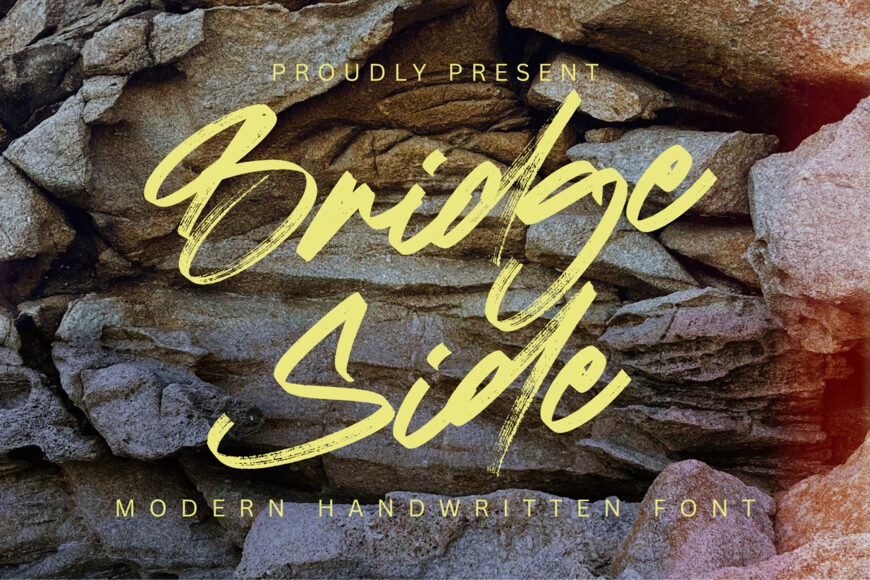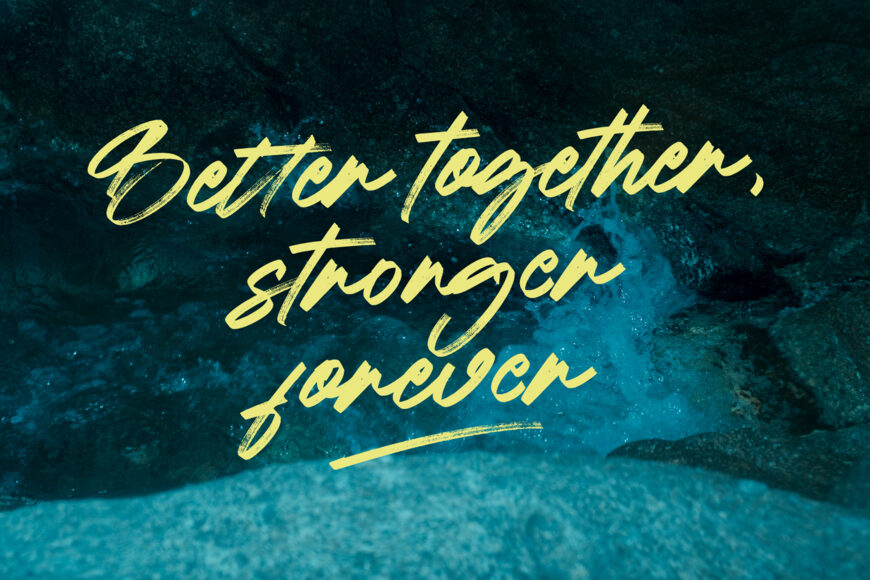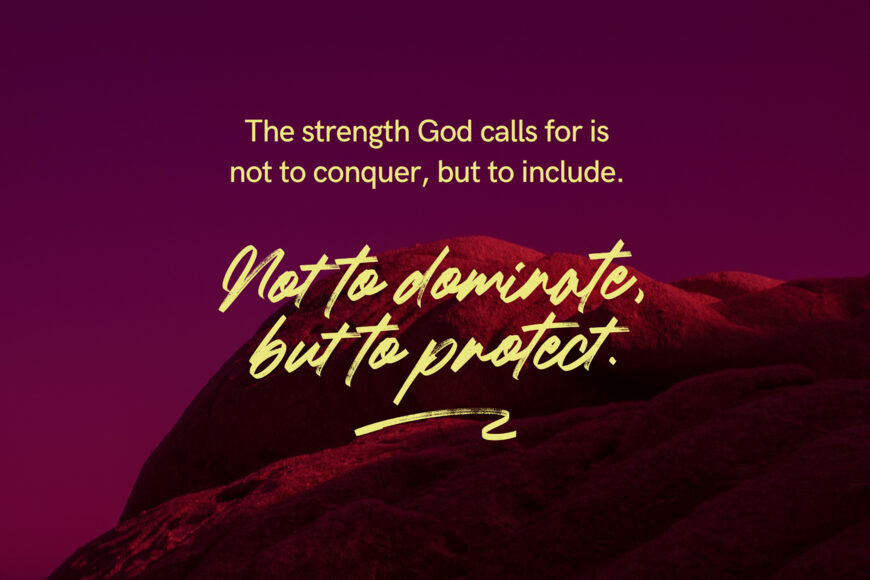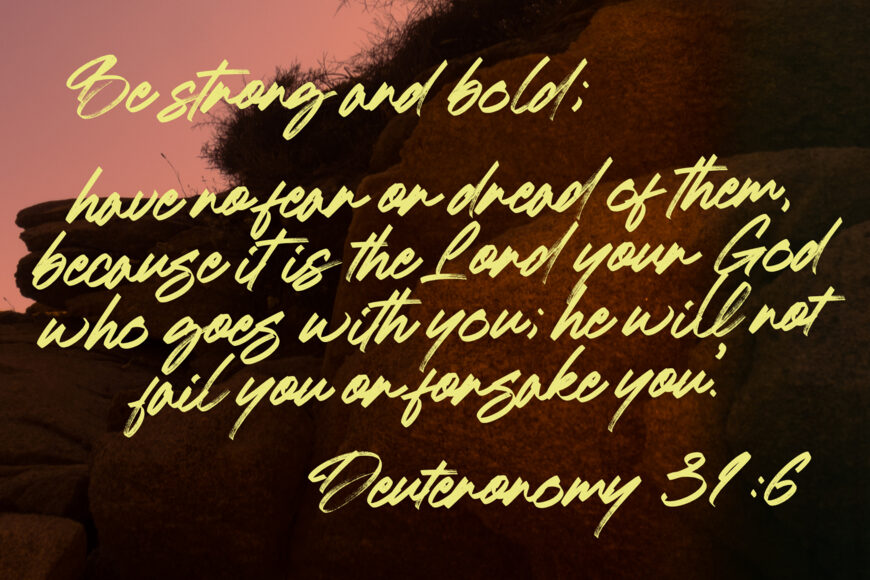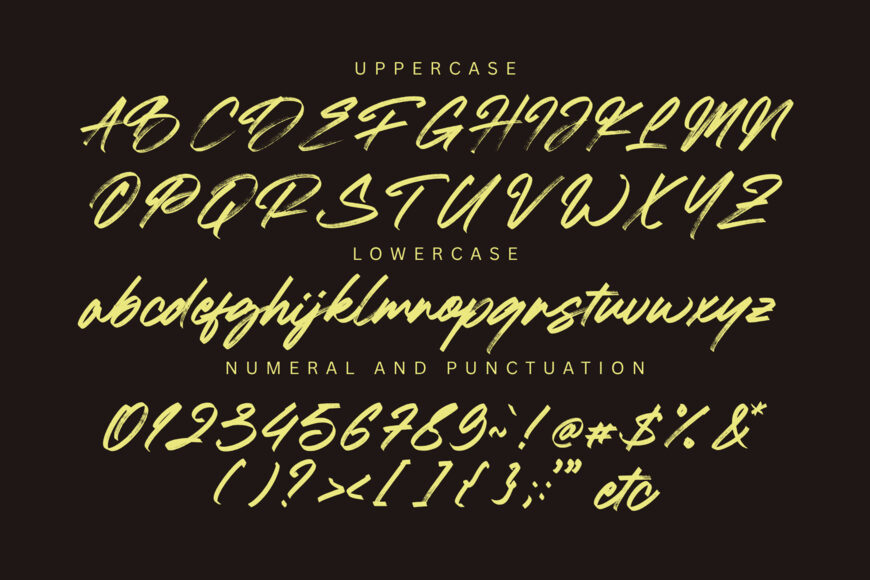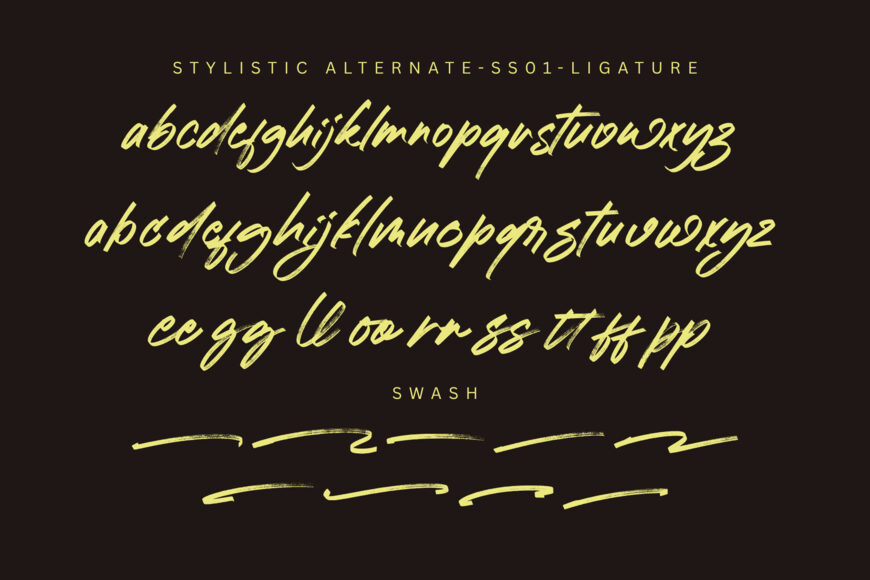
Bridge Side is a modern handwritten brush font with a natural and expressive style. Its bold brush strokes and smooth flow make it perfect for logos, branding, packaging, quotes, posters, social media, and other creative projects. Complete with ligatures, multilingual support, and PUA encoding, Bridge Side adds a stylish handcrafted touch to any design.